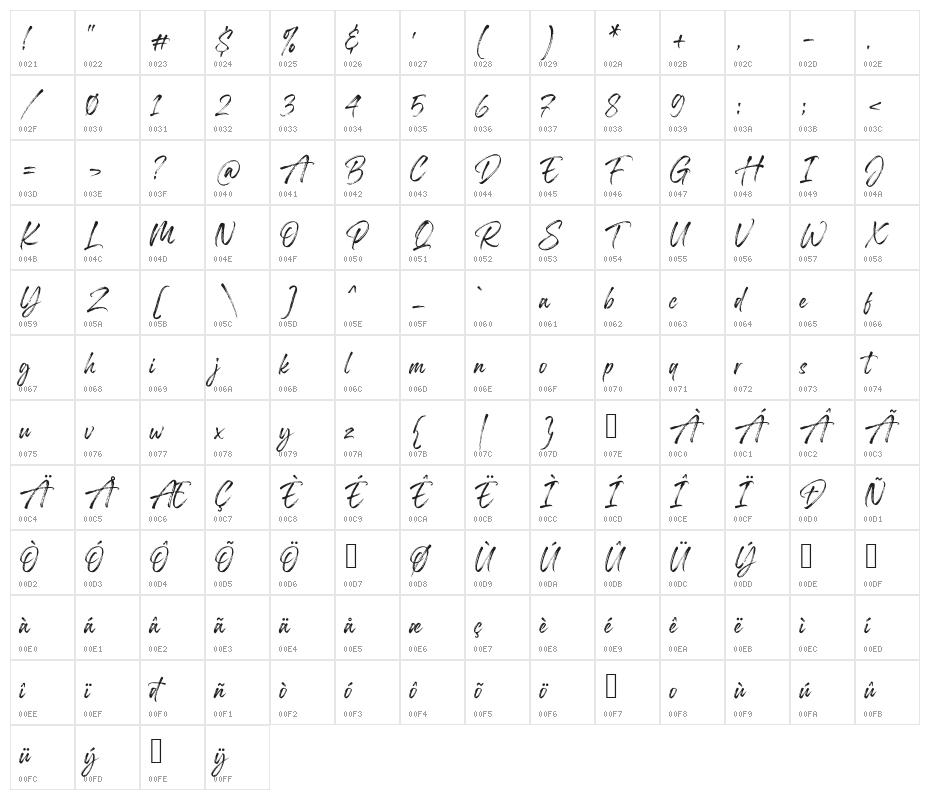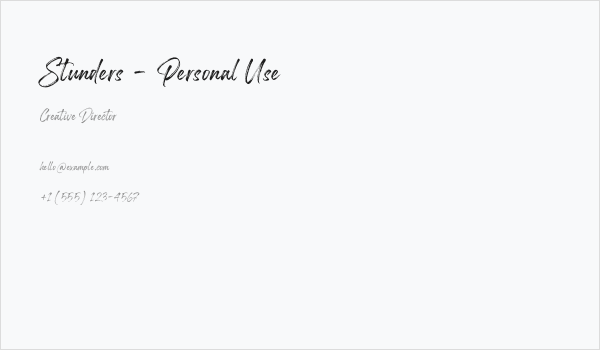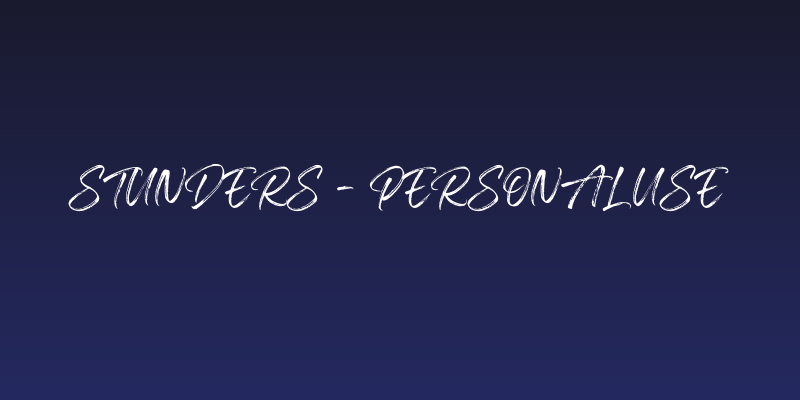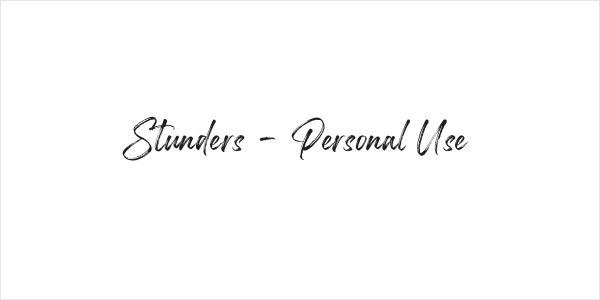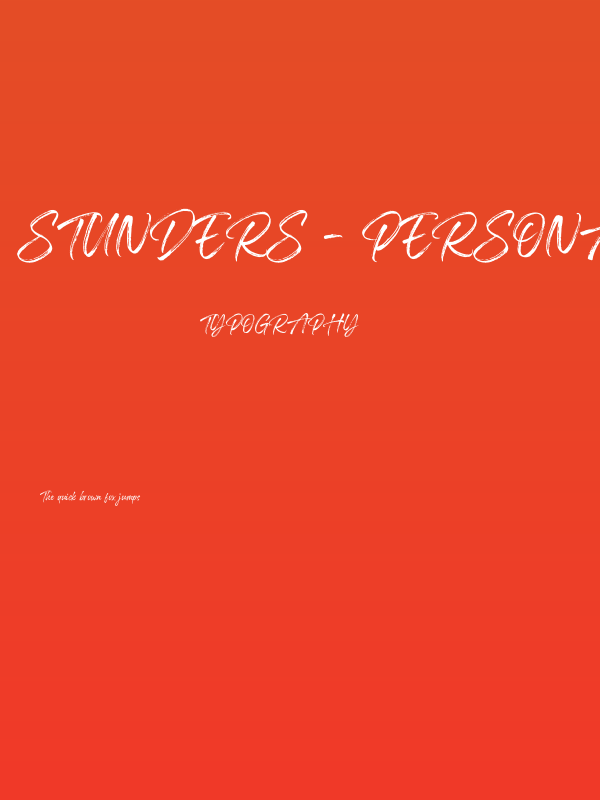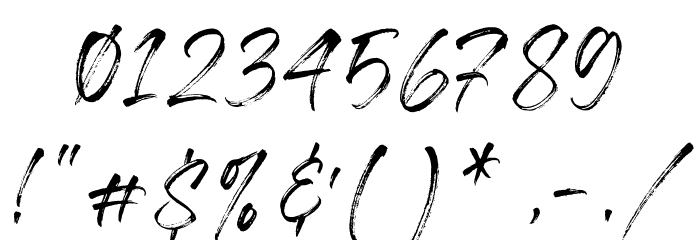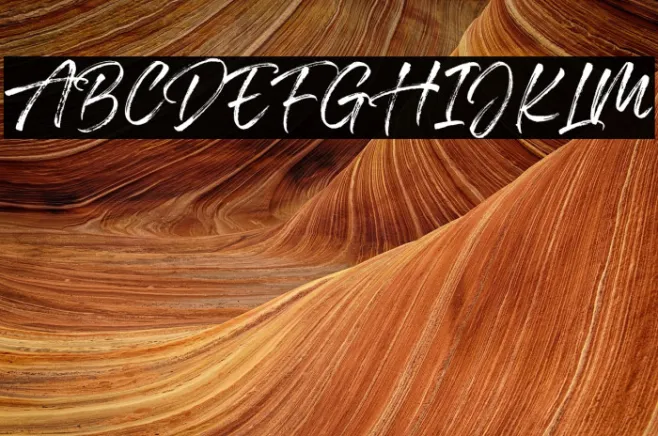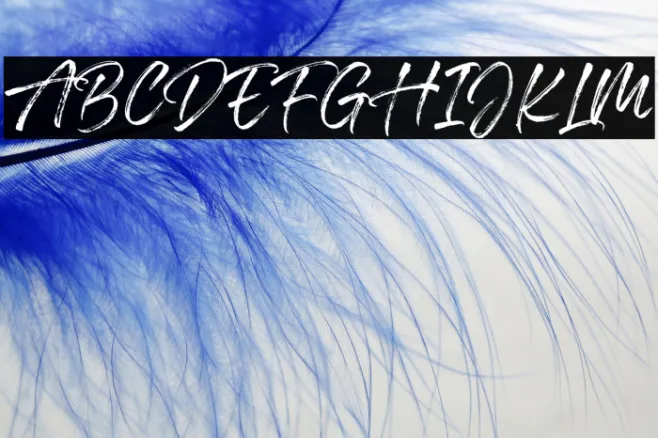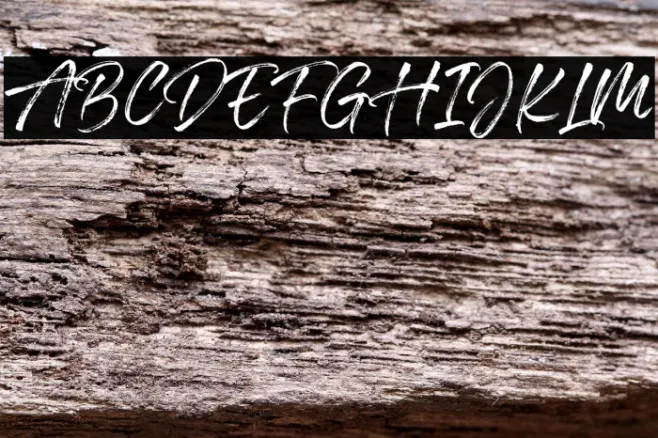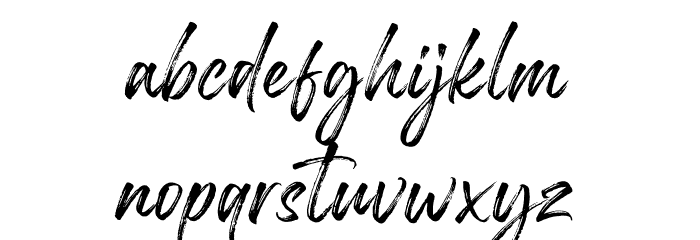
Stunders - Personal Use Font
Stunders - Personal Use Description
This font exhibits a dynamic and expressive handwritten style, characterized by its fluid and cursive strokes. The letters are crafted with a brush-like texture, giving them a lively and artistic appearance. The uppercase letters are bold and sweeping, while the lowercase letters maintain a consistent flow, enhancing the font's legibility. Numbers and special characters are designed with the same energetic flair, making them suitable for creative and informal contexts. The overall design is both modern and artistic, ideal for projects that require a personal touch.
| Overall Style | Modern, Artistic |
| Proposed Projects | Ideal for creative projects such as greeting cards, invitations, branding, and social media graphics. |